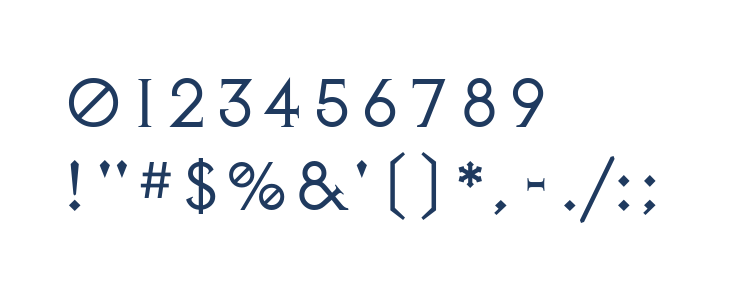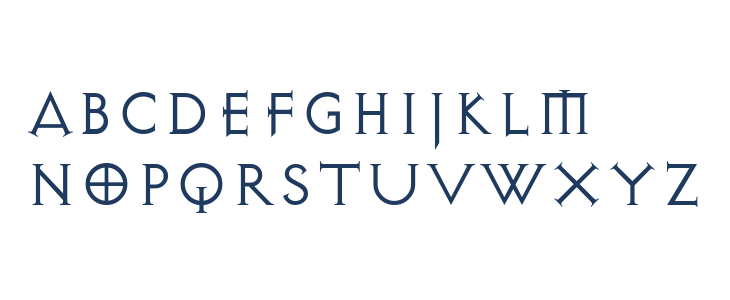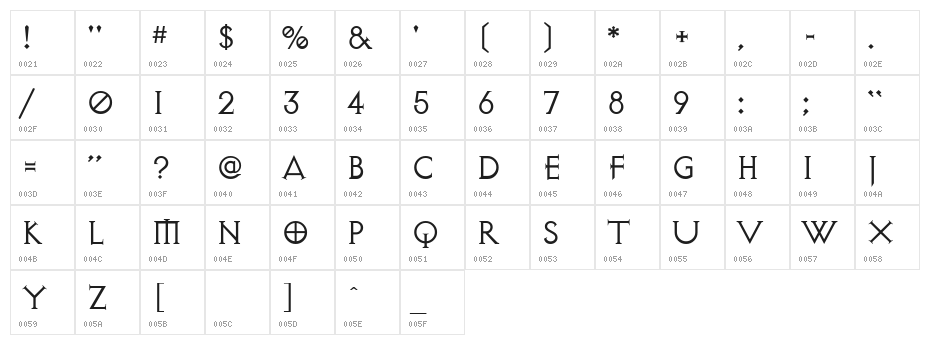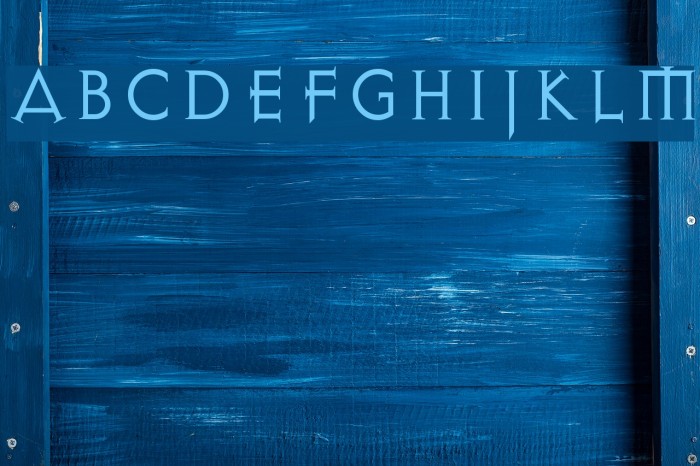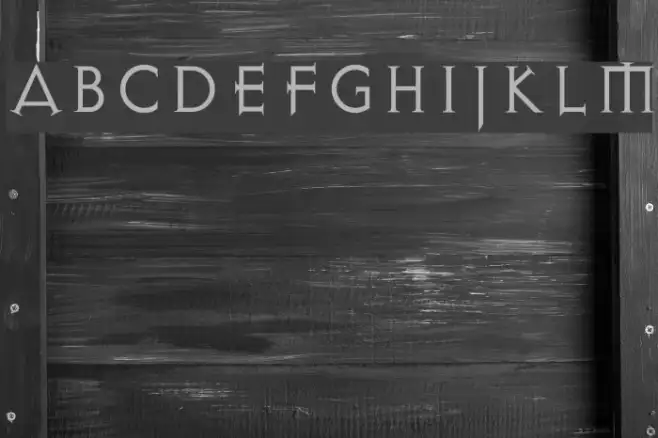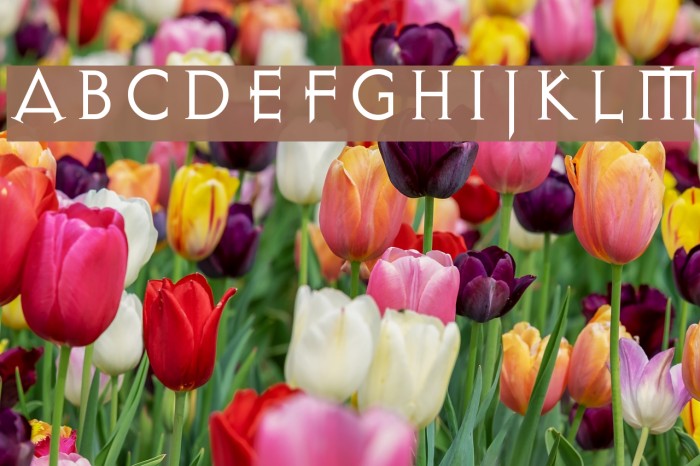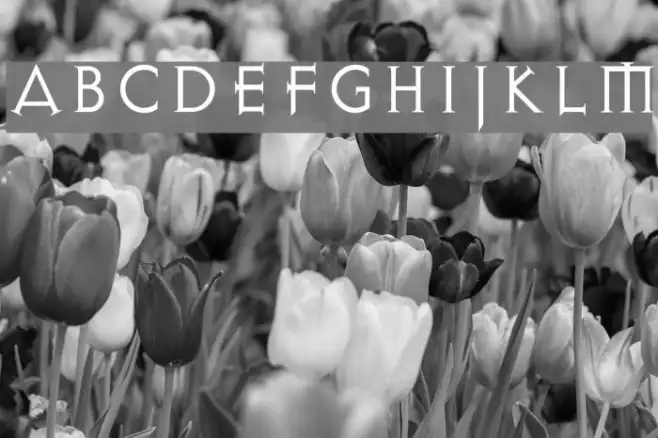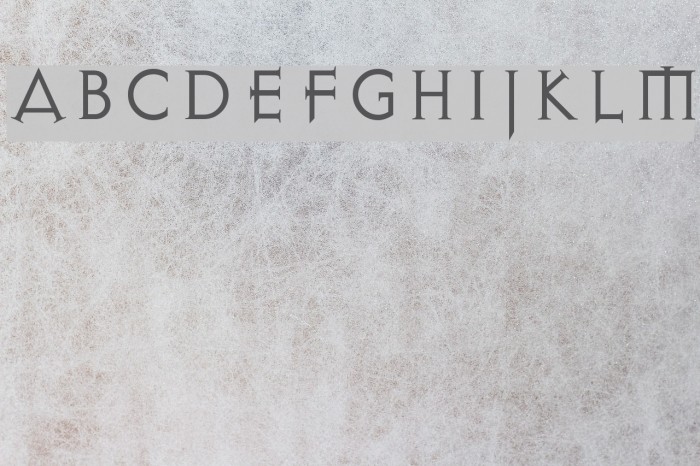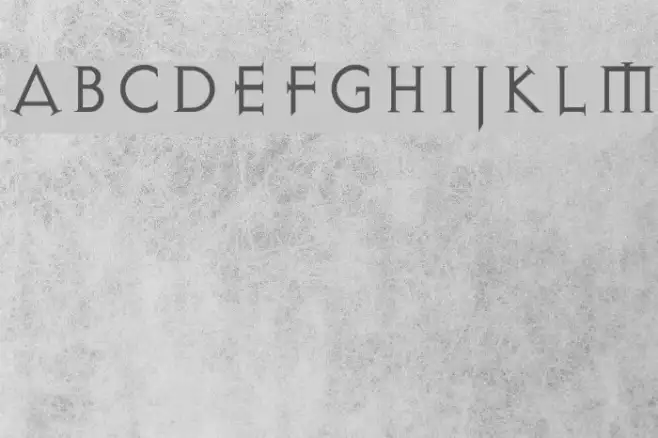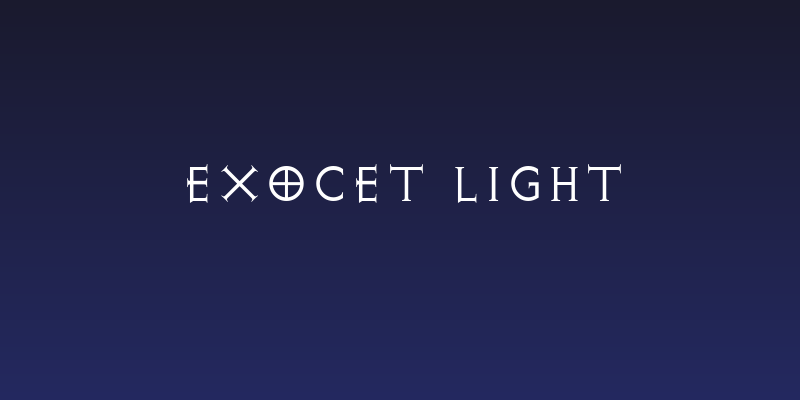
Exocet Light Font
Exocet Light Description
This font exhibits a unique blend of ancient and futuristic design elements, characterized by its sharp, angular serifs and geometric shapes. The uppercase letters are particularly striking, with a distinct, almost rune-like appearance that suggests a connection to ancient scripts. The circular elements within certain characters, such as 'O' and 'Q', add a modern twist, creating a sense of balance between tradition and innovation. The numerals and special characters maintain this theme, offering a cohesive look across all glyphs. The overall aesthetic is bold and impactful, making it suitable for projects that require a strong visual presence.
| Use Case | Logos, Headlines |
| Proposed Projects | Ideal for video game titles, fantasy book covers, movie posters, and branding for tech or gaming companies. |